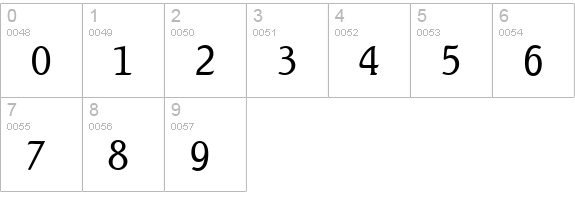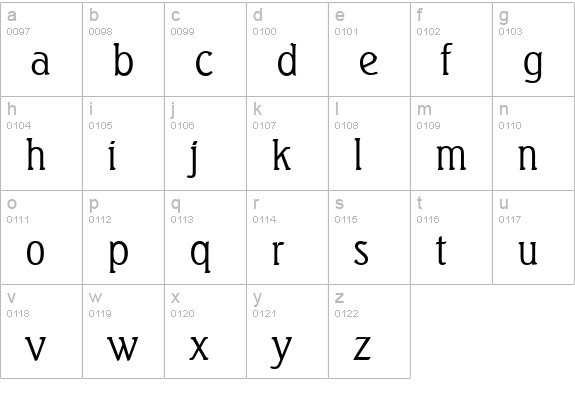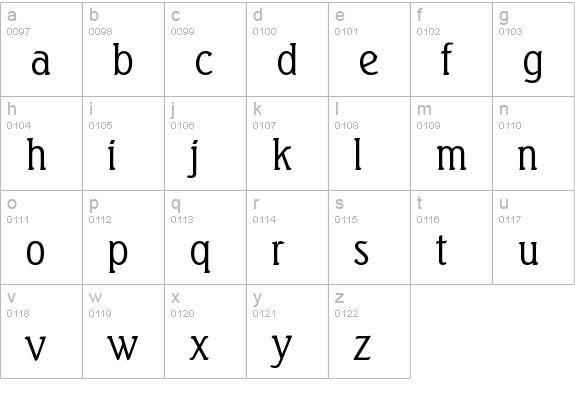
SeagullSerial-Light-Regular is a refined, elegant variant in the SeagullSerial typeface family \xE2\x80\x94 well suited to elegant body text, refined sub-headings, and luxury branding.
SeagullSerial-Light-Regular font is a modern and sleek typeface that exudes elegance and sophistication. Its clean lines and minimalistic design make it perfect for a wide range of design projects, from branding to editorial design. This versatile font is ideal for creating a professional and polished look. The SeagullSerial-Light-Regular font is available for free download at FontsMarket.com, making it easily accessible for designers and creatives looking to elevate their projects with a high-quality typeface. With its timeless appeal and effortless charm, this font is sure to make a lasting impression on any design endeavor.